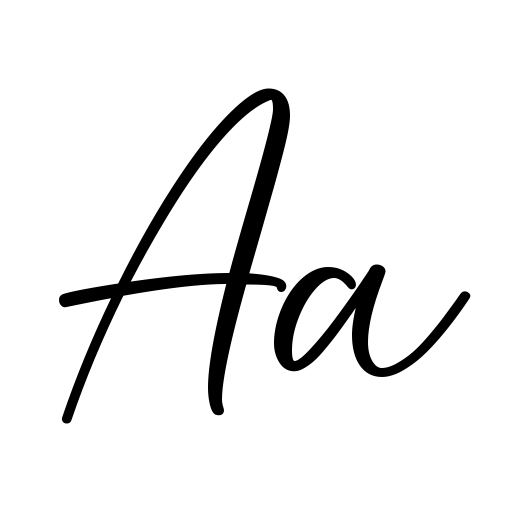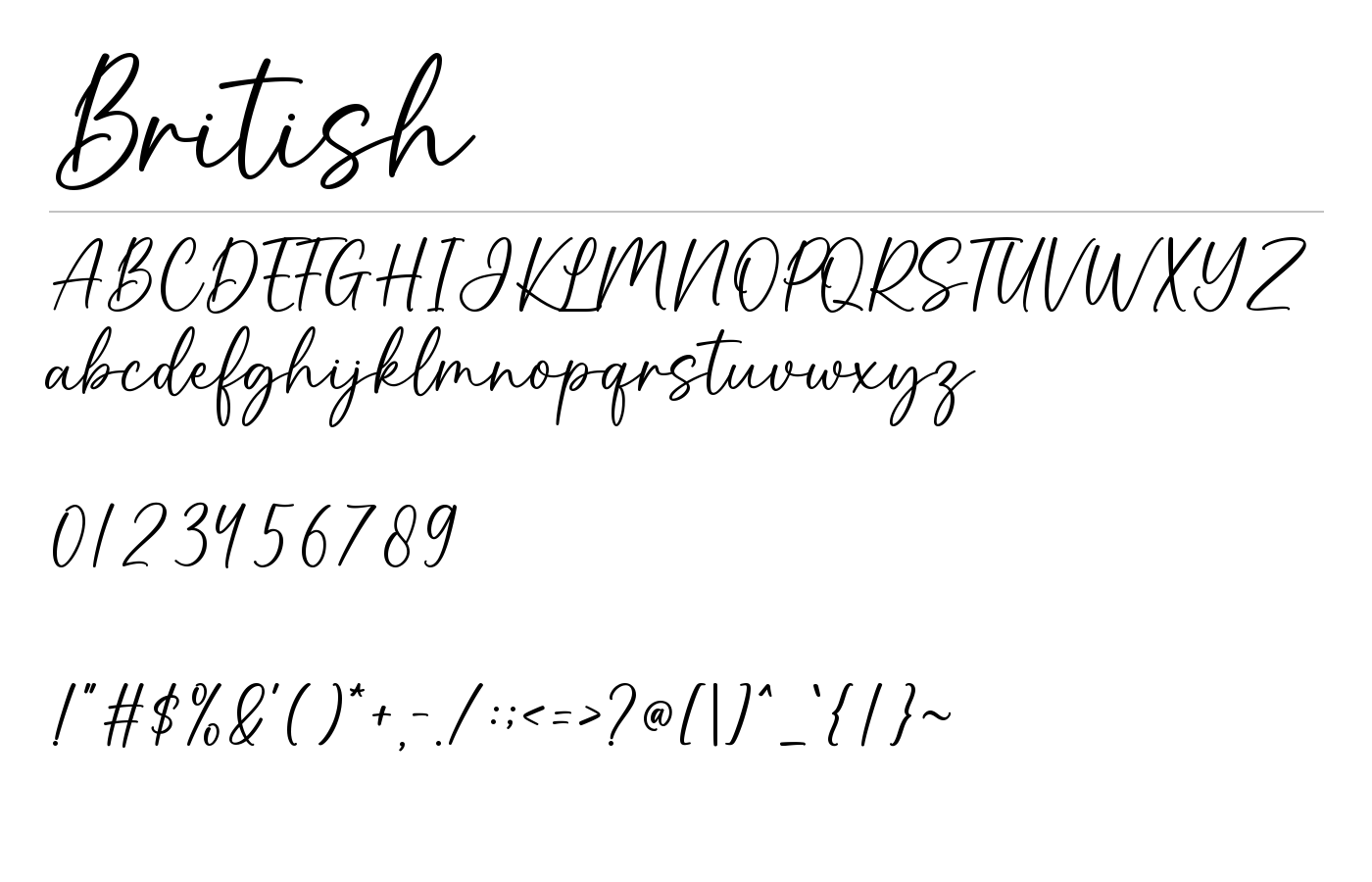
British Font is a delicate, elegant script typeface with a natural, handwritten feel. It features smooth, flowing strokes with consistent light weight and slender proportions, making it perfect for invitations, branding, and stylish editorial use that seeks a personal yet refined touch. Its graceful letterforms bring warmth and sophistication, ideal for projects that want to convey charm and subtle elegance.
British Font
About British Font
| Font family | British Font |
| Designer | Risma Ramawi |